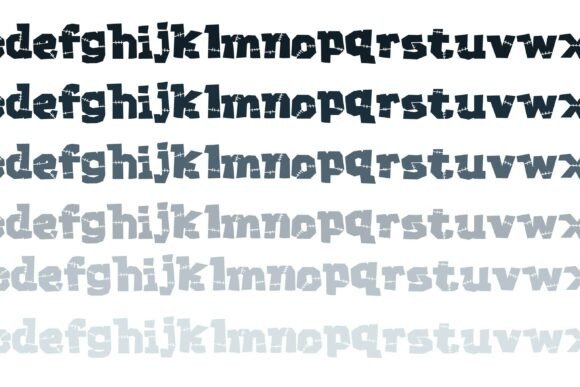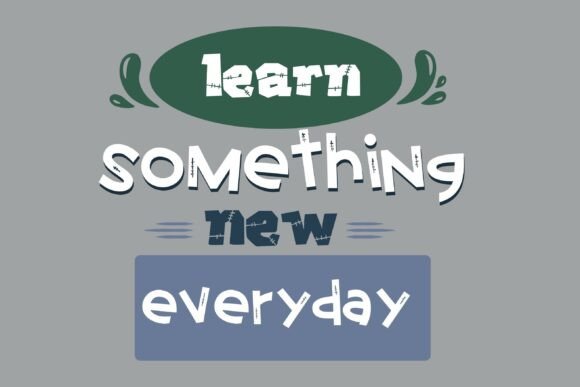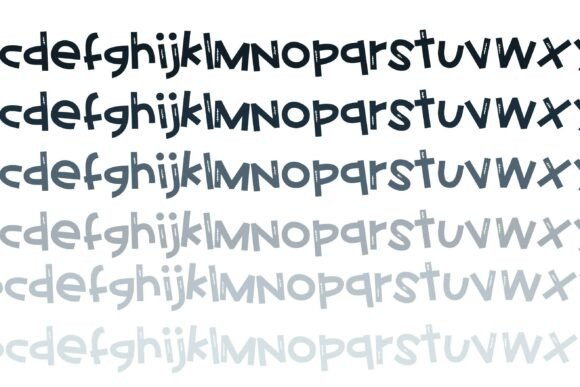
Introduction to Frankenfriend Duo Font Font
Fonts play a crucial role in design, and the Frankenfriend Duo Font font is a typeface that brings both character and versatility to any project. Whether you’re working on a branding project, a website, or a print design, the Frankenfriend Duo Font font offers a unique style that can elevate your work.
Frankenfriend is a playful and spooky font duo that brings a touch of fun fright to your Halloween and monster-themed projects.
This whimsical typeface includes two styles: the stitched and chunky Frankenfriend, and the clean and quirky Frankenfriend Sans Both are perfect for a wide range of creative usesβfrom kidsβ party invitations and Halloween decor to spooky classroom projects, DIY crafts, and themed merchandise.
Key Features of Frankenfriend Duo Font Font
Why Choose Frankenfriend Duo Font Font?
The Frankenfriend Duo Font font is more than just a typeface β it’s a design tool that helps you communicate your message with style and clarity. Its unique character set and versatile design make it suitable for a wide range of applications, from elegant invitations to bold headlines.
With its carefully crafted letterforms and balanced proportions, the Frankenfriend Duo Font font ensures readability and visual appeal across all mediums.
What makes Frankenfriend Duo Font font special?
The Frankenfriend Duo Font font stands out with its unique design, exceptional readability, and versatility across various design applications.